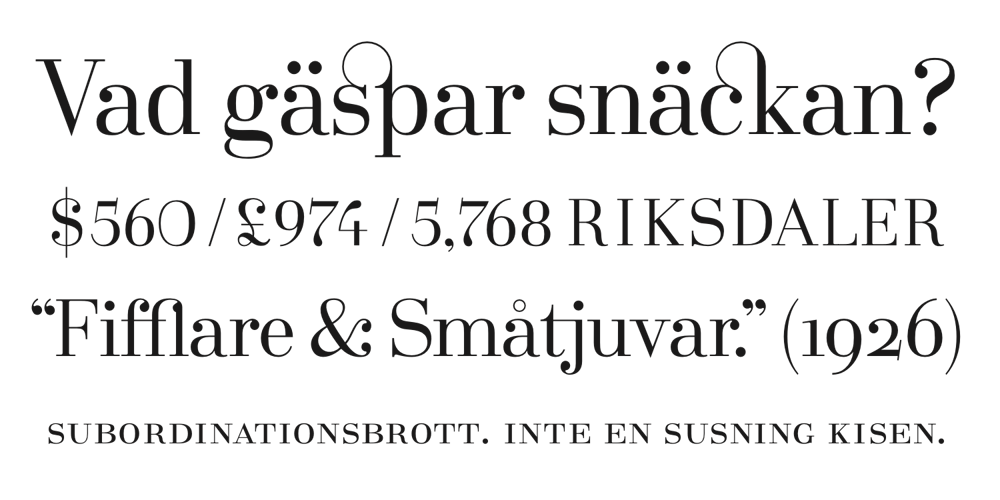
Södermalm
Södermalm font
Södermalm Font Family was designed by published by Skybäck Design. Södermalm contains 1 styles and family package options. Named after and inspired by an area in central Stockholm, this typeface also draws on design characteristics from faces such as Bodoni, Didot, Centennial and Walbaum as well as Mrs Eaves. The currently available Regular version of the typeface includes small caps, default and old style figures, standard ligatures as well as an extensive set of discretionary ligatures. Also included is a set of alternative lower case characters. These styles can be accessed as Opentype Features.